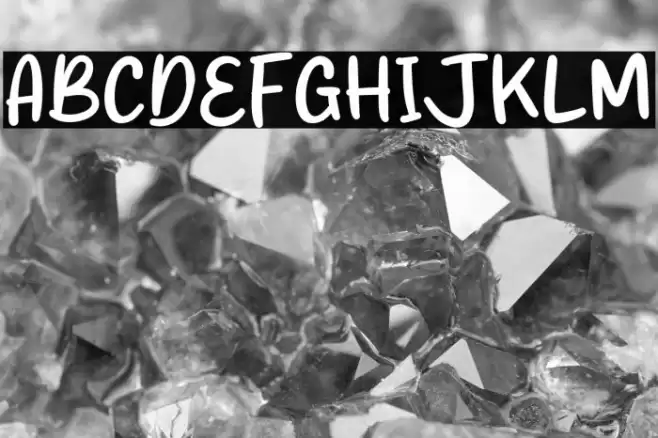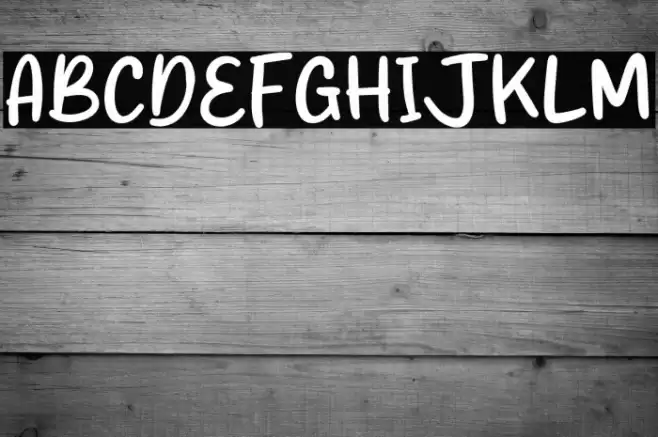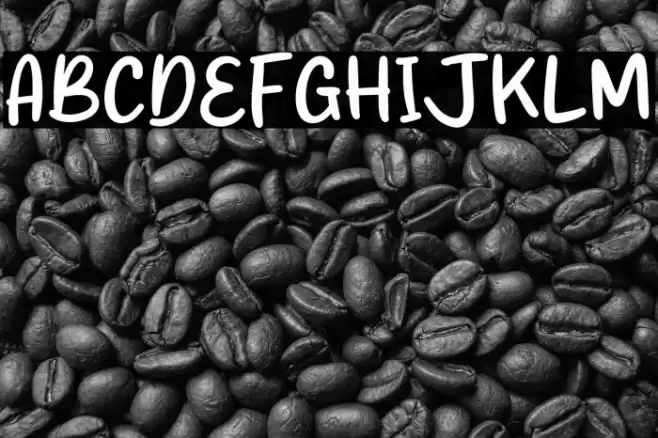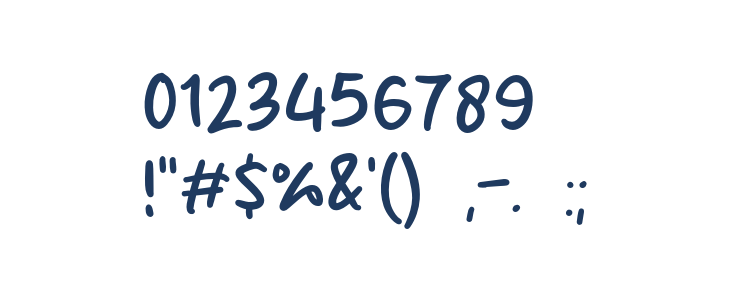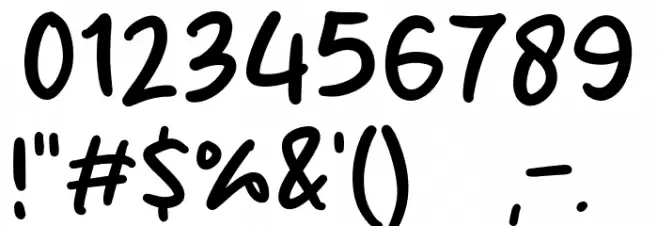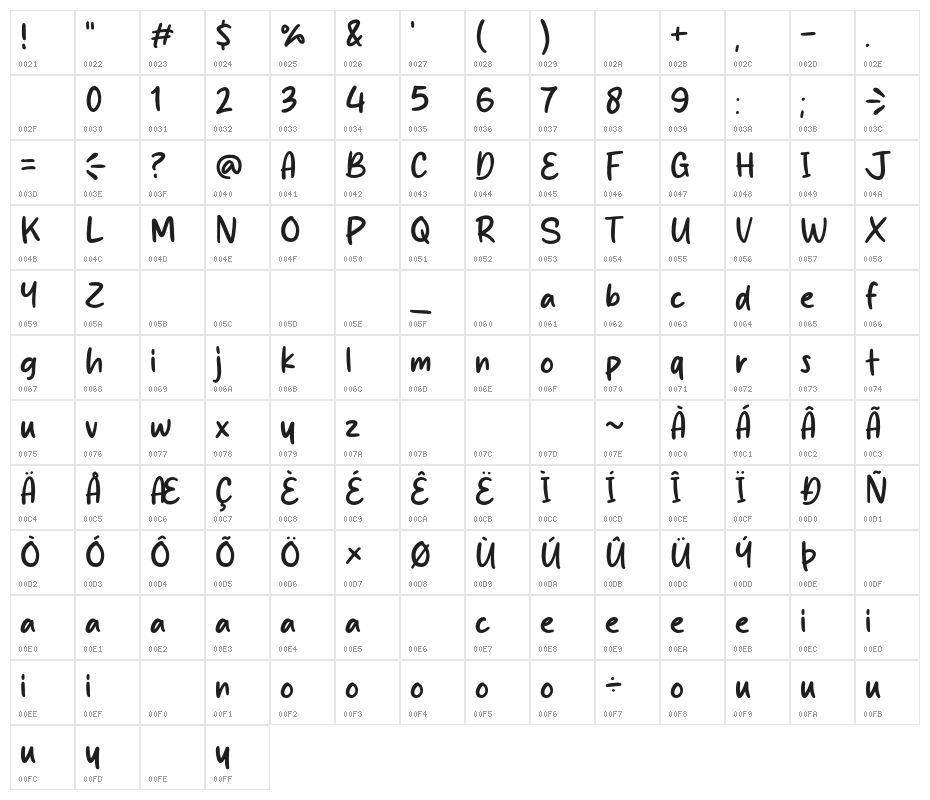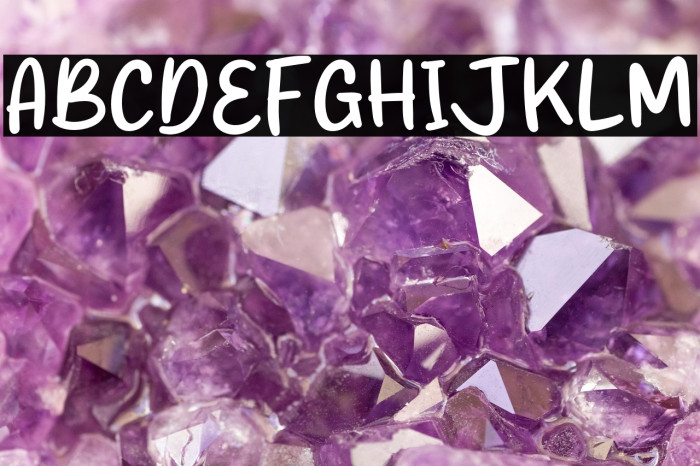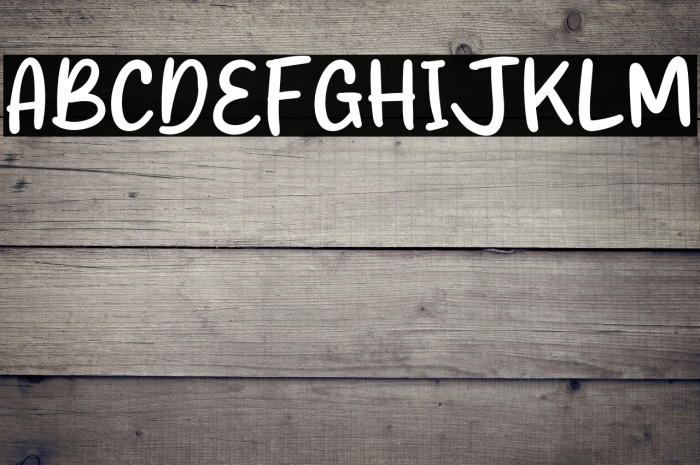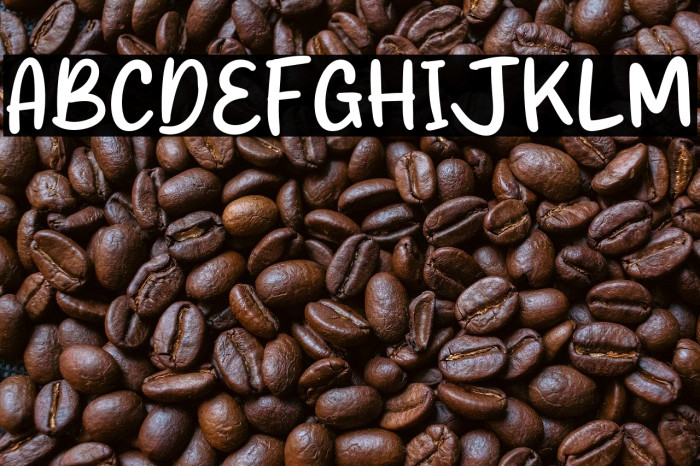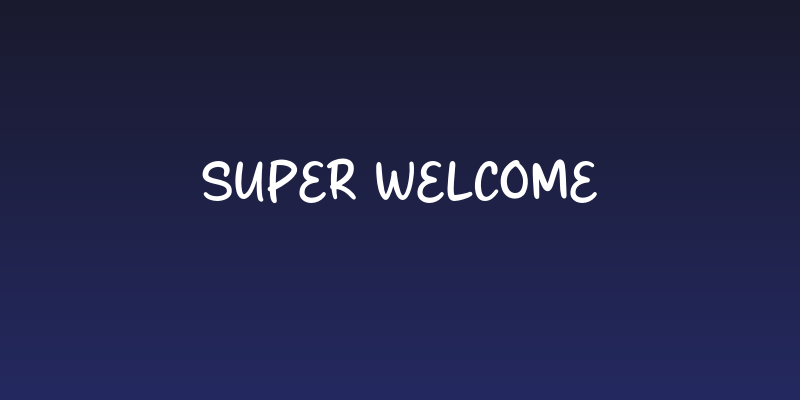
Super Welcome Font
Super Welcome Description
This font exudes a playful and casual handwritten style, characterized by its smooth, rounded strokes and slightly irregular letterforms. The uppercase and lowercase letters maintain a consistent flow, giving it a friendly and approachable appearance. The numerals and special characters are crafted with the same informal charm, making them easily legible and visually appealing. The overall design is balanced, with moderate character spacing that ensures readability while retaining its whimsical nature.
A playful, casual handwritten font with smooth, rounded strokes from Uncategorized fonts.
- Font: Super Welcome
- Proposed Projects: Ideal for greeting cards, children's books, casual branding, and social media graphics.
- Overall Style: Casual
- Use Case: Logos, Headlines, Informal Text
Super Welcome UPPERCASE
Super Welcome LOWERCASE
Super Welcome OTHER CHARS